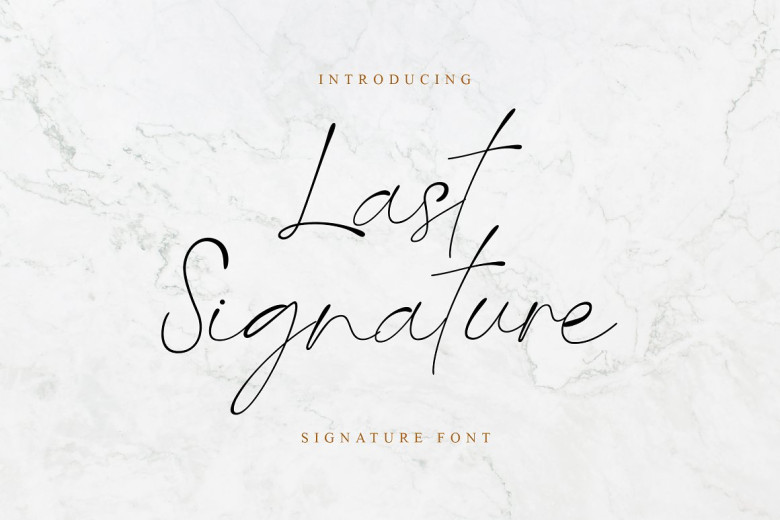
Last Signature Font
Last Signature is a stylish and delicate handwritten signature script font. It has an almost air of lightness, with relatively thin, smooth quality. Anything you want to achieve in the design industry, insert this font for success!
Last Signature Script Font